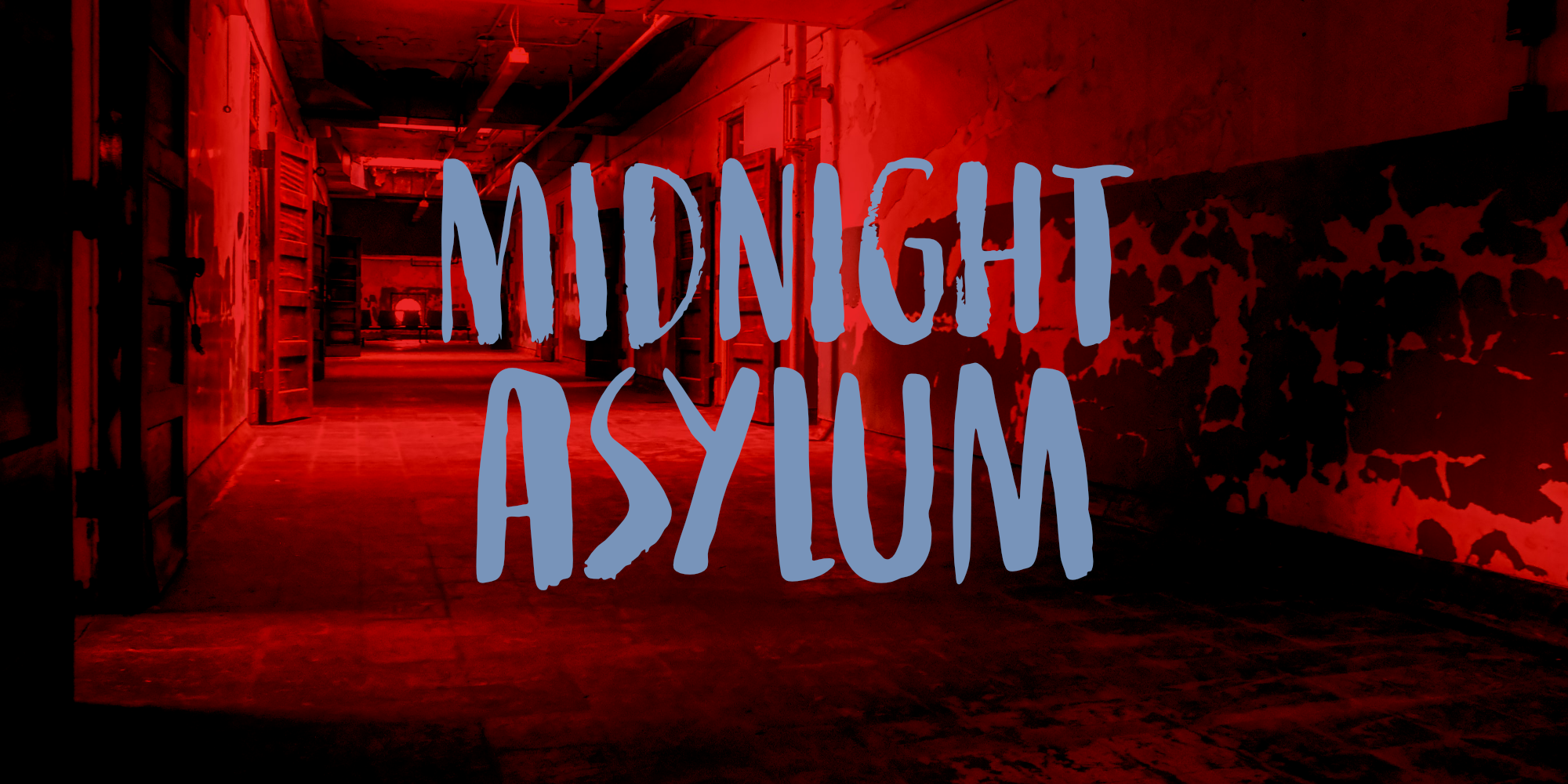
Midnight Asylum Font excels in horror movie posters, gothic novel covers, haunted attraction signage, dark music album artwork, Halloween event promotions, thriller book publications, mystery escape room branding, and supernatural entertainment marketing. This haunting typeface brings psychological tension and gothic atmosphere to any project requiring dark, mysterious typography with authentic horror industry credibility and spine-chilling appeal.
What makes Midnight Asylum Font exciting is its masterful evocation of psychological unease and gothic horror that captures the essence of midnight fears and asylum nightmares with authentic supernatural atmosphere. The font features distressed letterforms with irregular edges and unsettling proportions that mirror the fractured psychology of horror narratives while maintaining essential readability for commercial applications. Its dark character and atmospheric presence create immediate tension and intrigue, making it perfect for entertainment brands in horror, thriller, and supernatural genres seeking to deliver authentic chills and Gothic authenticity. The typeface's haunting appeal ensures instant recognition of horror expertise and dark entertainment quality.
The Midnight Asylum Font family includes Regular, Bold, Distressed, Condensed, and Shadow variants, each designed to enhance different aspects of horror and gothic storytelling applications. The family features horror symbols, gothic elements, and atmospheric characters that enhance its versatility for dark entertainment and supernatural branding projects. These variants provide comprehensive tools for creating authentic horror typography that delivers genuine psychological impact and atmospheric dread.
Whether you're designing for horror entertainment, gothic brands, or supernatural media, Midnight Asylum Font Free Download delivers the dark authenticity that defines genuine horror typography. Its combination of psychological tension and gothic atmosphere makes it perfect for communicating supernatural thrills, horror entertainment, and dark storytelling with authentic Midnight Asylum Font Free Download intensity and unforgettable haunting presence.